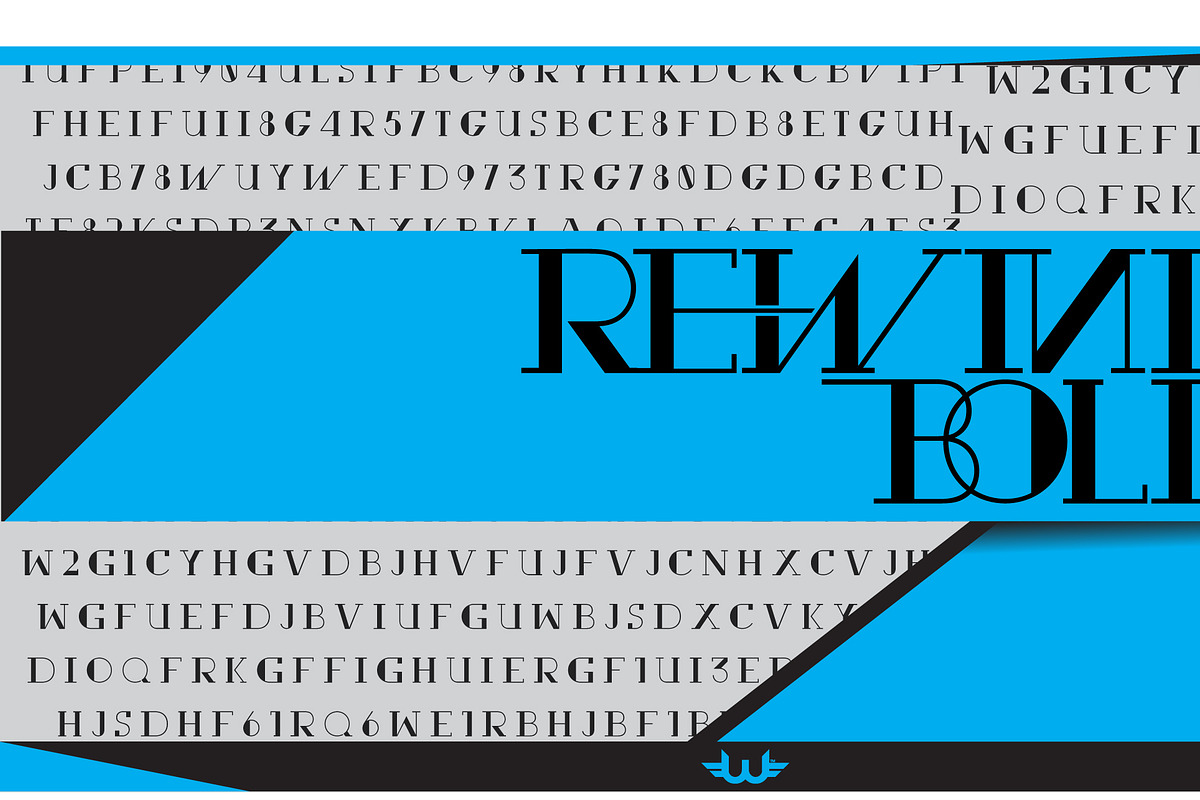
Rewind Bold Typeface
Rewind Bold Typeface by WesloFonts is a font selected for branding, posters, packaging, typography.
Why Rewind Bold Typeface is worth a look
Rewind Bold Typeface by WesloFonts fits naturally into Branding, posters, packaging, typography.